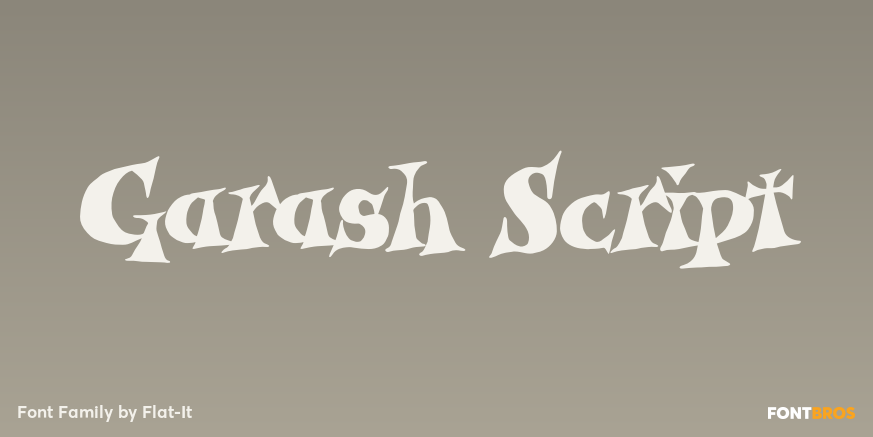
HomeFont BrosRetro (1936-1965)Garash Script Retro (1936-1965)Wacky Garash Script FacebookXPinterestWhatsApp 1 of 1 About Garash Script Very decprative script inspired by old lettering in eastern europe. very eycatching for picture books, toys for children.  DOWNLOAD ON FONT BROSThis font is sold and delivered by Font Bros. Font Canyon may earn a commission if you buy through this link. People also explored Lobster Font Spacemonth Font Rositha Monogram Font Larisa Font Wallbrush Font Keswick Minimal Font Back to Valentine Love Font Mandala Signature Font 262 0 TagsGarash Script Font Previous articleRooseveltNext articleMetcon LEAVE A REPLY Cancel reply Comment: Please enter your comment! Name:* Please enter your name here Email:* You have entered an incorrect email address! Please enter your email address here Website: Save my name, email, and website in this browser for the next time I comment. Personal Use Free Fibon Personal Use Free Read more about this font Eits Personal Use Free Read more about this font Ammanda Personal Use Free Read more about this font Puisi Adinda Personal Use Free Read more about this font BLOG Where to Buy American Fonts Online in 2024 Where to Buy American Fonts Online: The Ultimate Guide for 2024 Looking for the perfect American font to elevate your design projects? You're in the... Modern Sans-Serif Fonts That Brands Love in 2025 How to Cut Any Font on Cricut: Convert a Font to SVG (Free) Fonts That Capture the Spirit of New York City